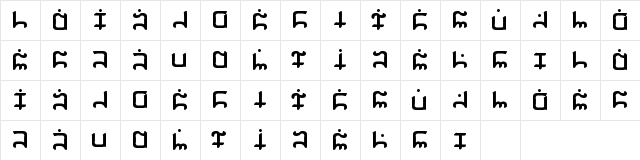
Gargish Bold
| Foundry | Neale Davidson |
| Designer | Neale Davidson |
Design Context for Gargish Typeface
Gargish offers clean, dependable letterforms without strong stylistic allegiance, making it a practical choice for designers who need flexibility. The heavy weight commands attention and anchors typographic hierarchies.